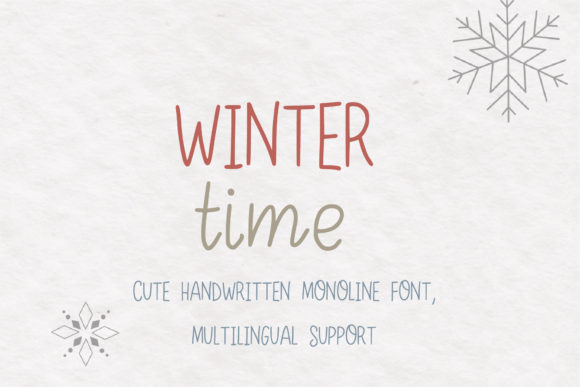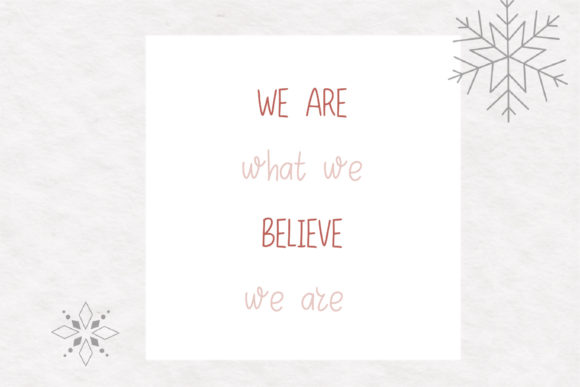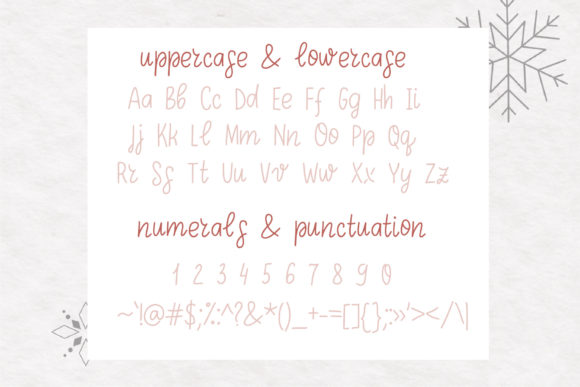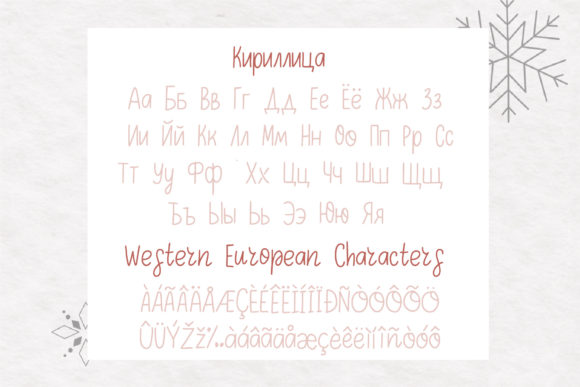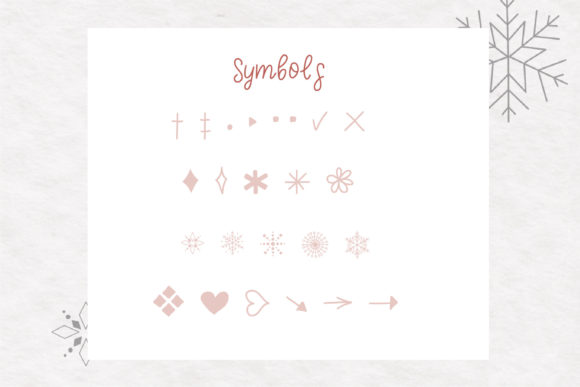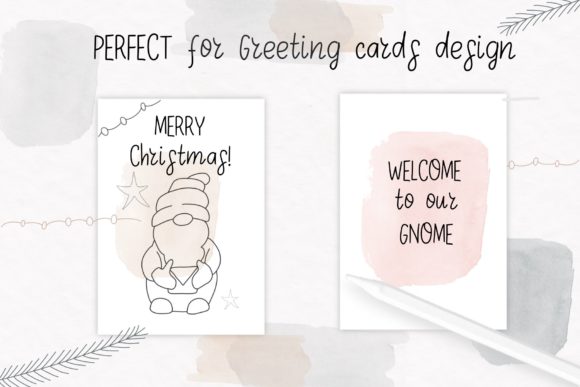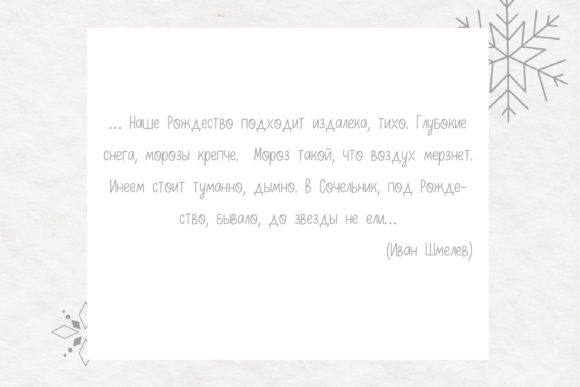
Winter Time Font
About Winter Time Font
Winter time is a playful and cute handwritten monoline font perfect for kids-related projects, and not only! It works great for social media posts, children’s books, storybooks, greeting cards, journals, and other items alike.